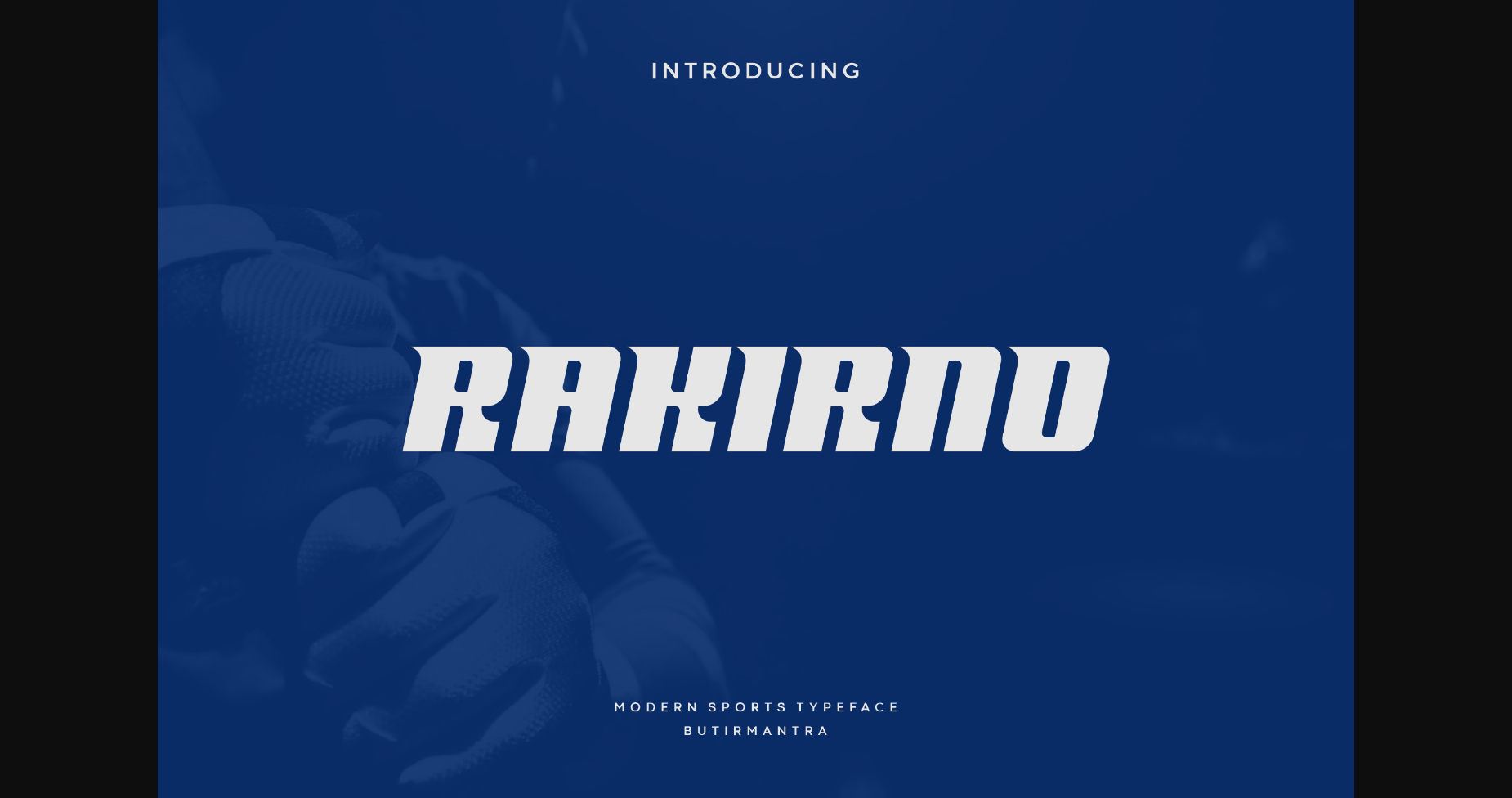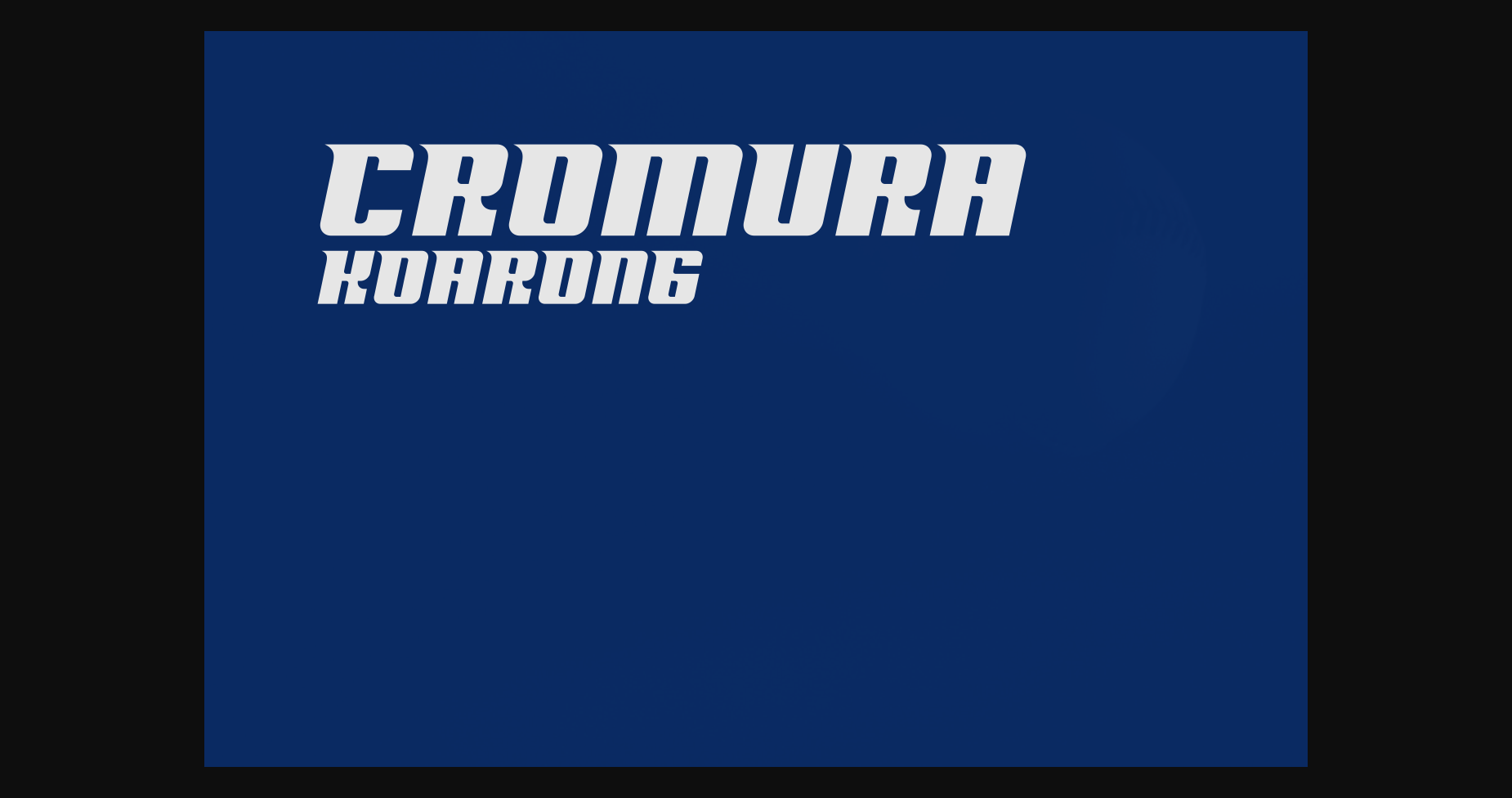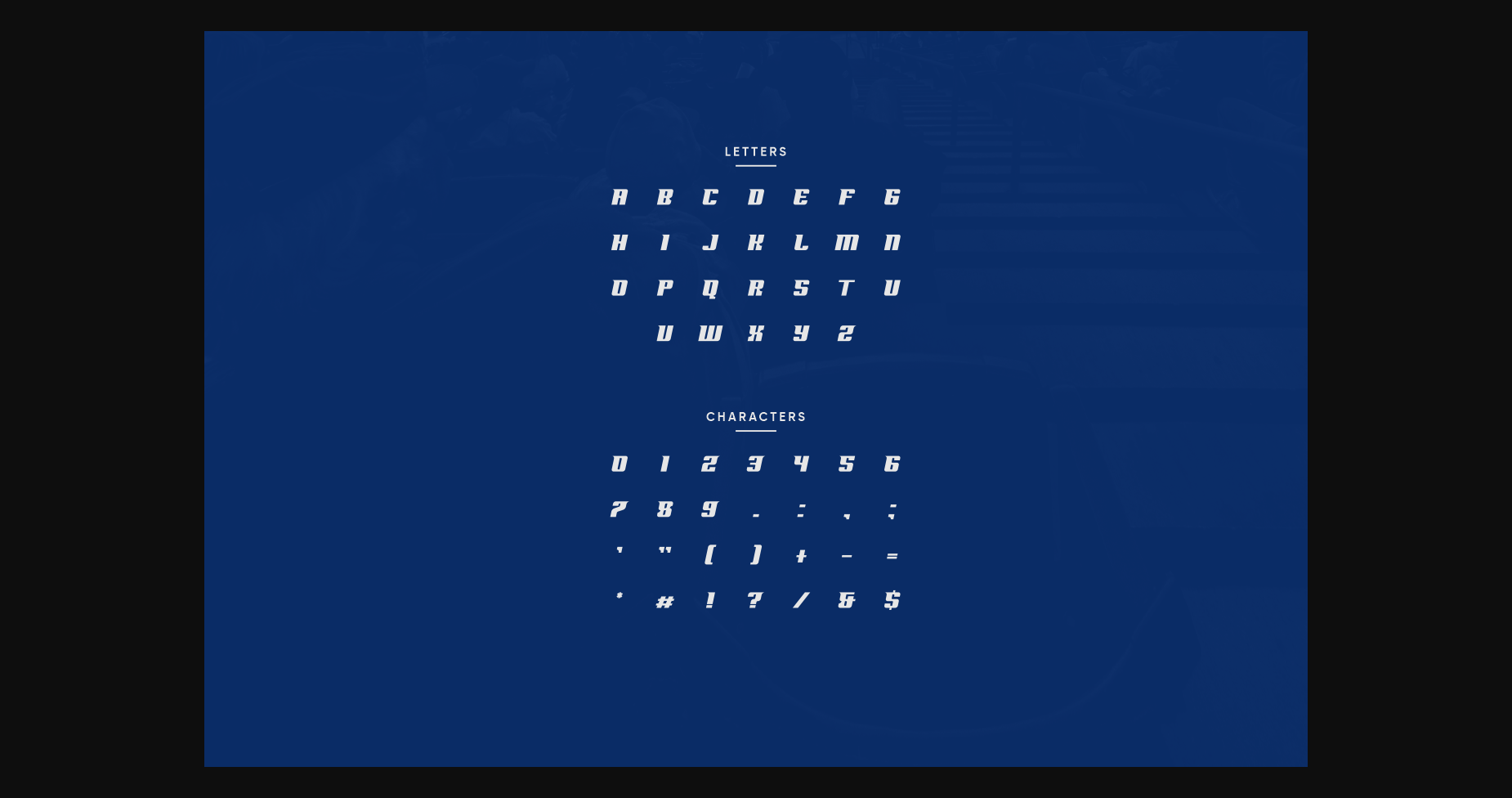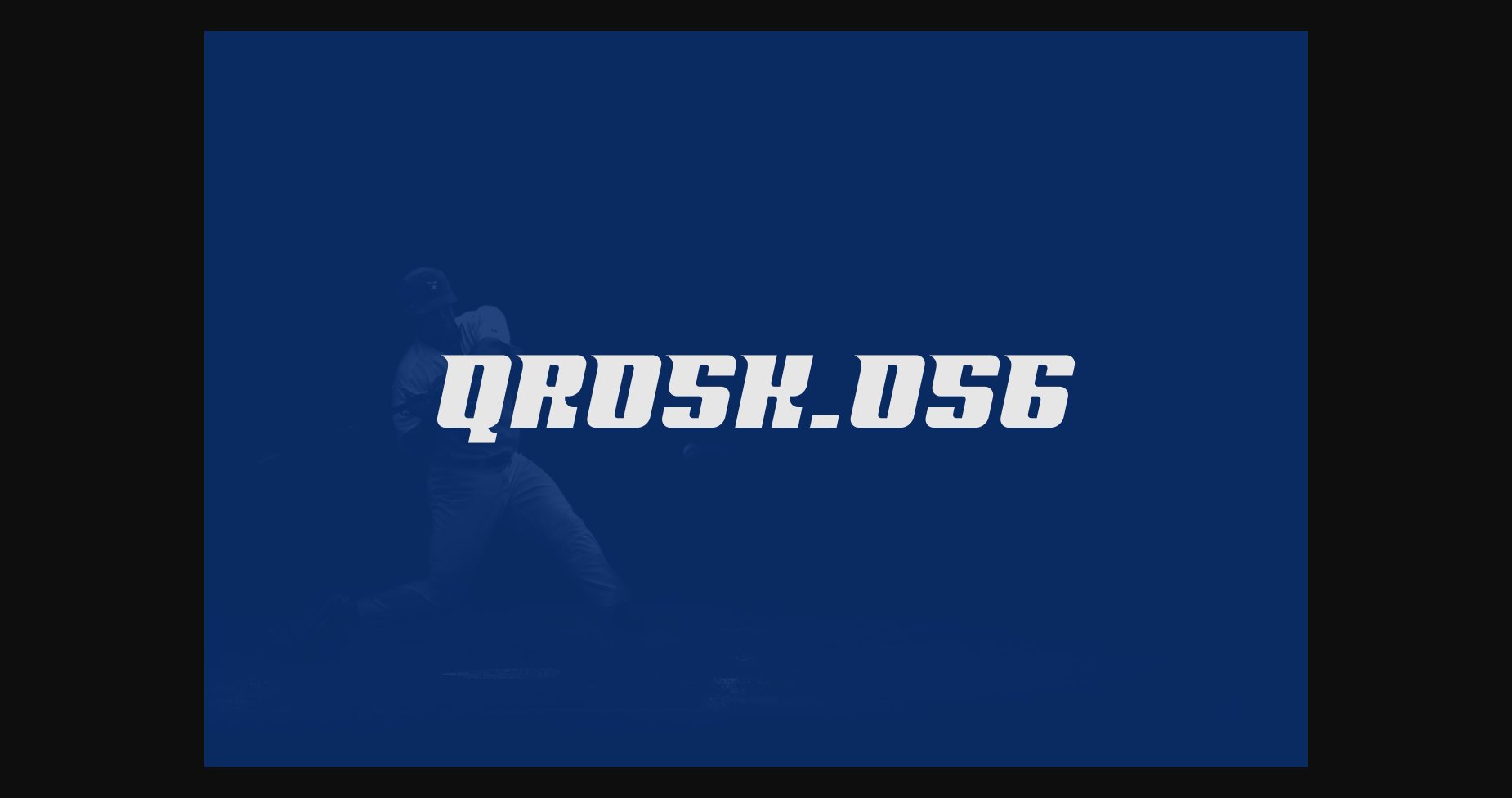
Rakirno Font
About Rakirno Font
Rakirno is a modern display font built specifically for sports branding, headline, and more prominent typography needs. Rakirno comes with a new and fresh all-caps style, which will make your design more memorable, it’s perfect for adding this font to sports, tech, action, and future themes. Rakirno was created for a bold action style and a modern feel, so enjoy creating any project that will showcase your main ideas.